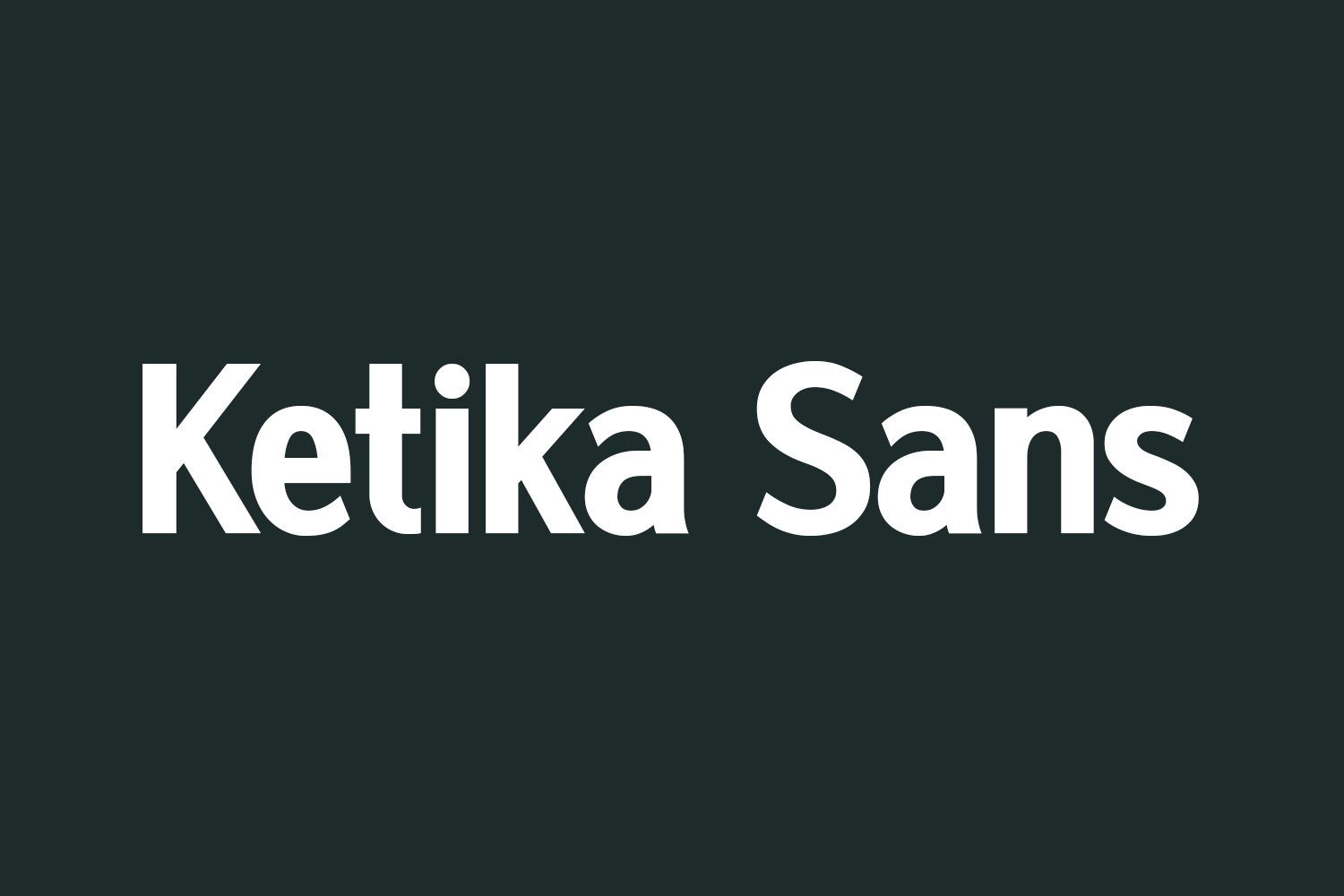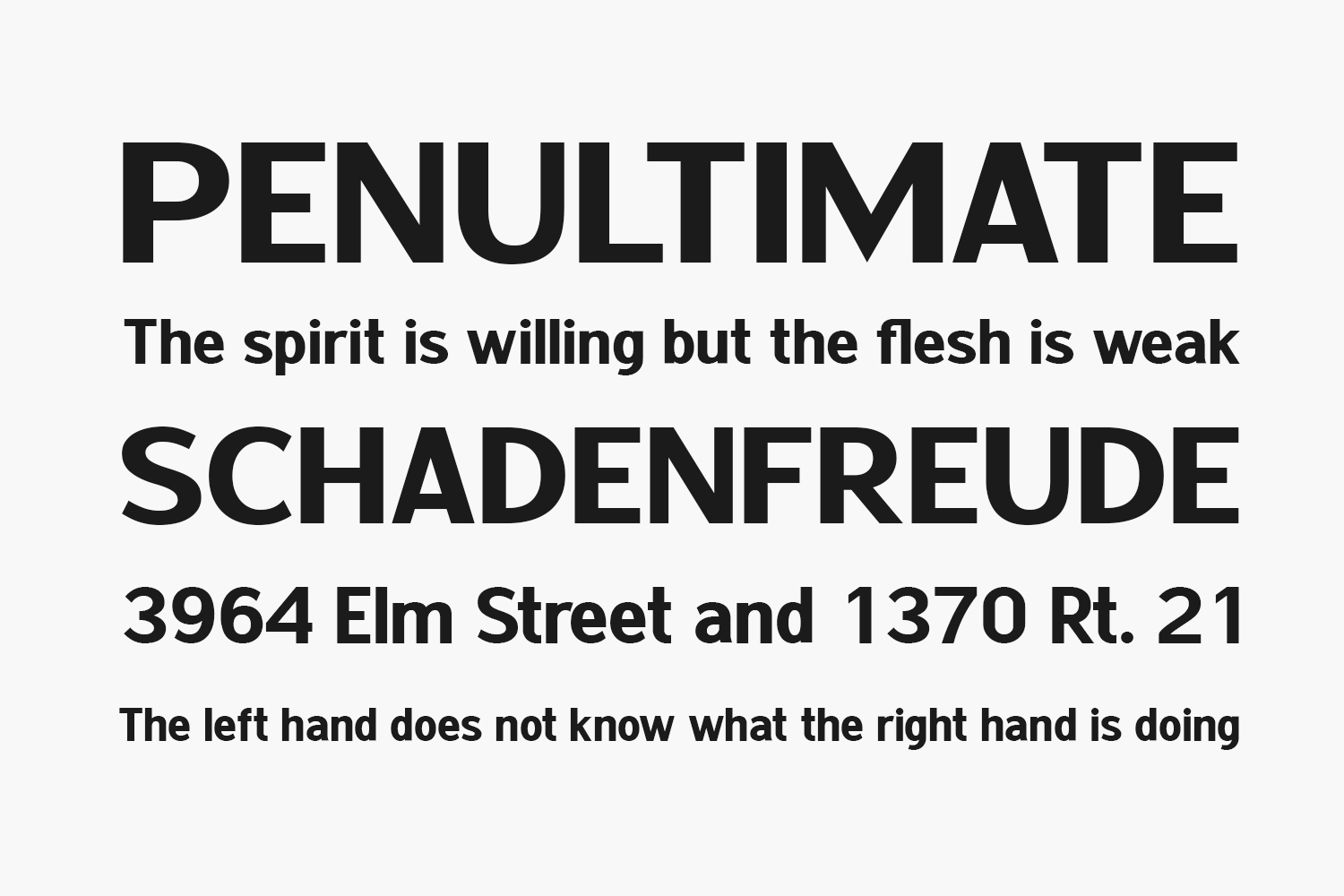
Ketika Sans Free Font is a contemporary typeface that exemplifies the essence of minimalism and clean design. With its sleek, straightforward lines and absence of decorative serifs, this sans-serif font offers a timeless and versatile aesthetic. Whether you’re designing websites, branding materials, or printed media, Ketika Sans Font is an excellent choice, providing readability and a modern, professional appearance to your projects. Ketika Sans Free Font was designed by Bayu Prahara and is free for personal use only.
Designed by Bayu Prahara